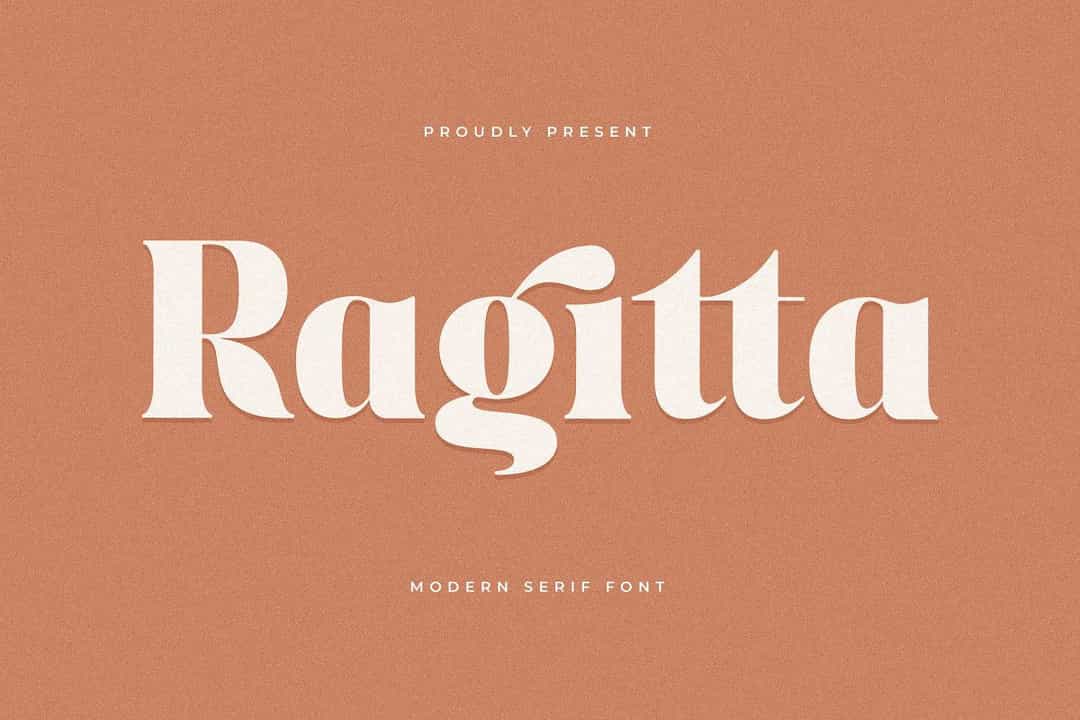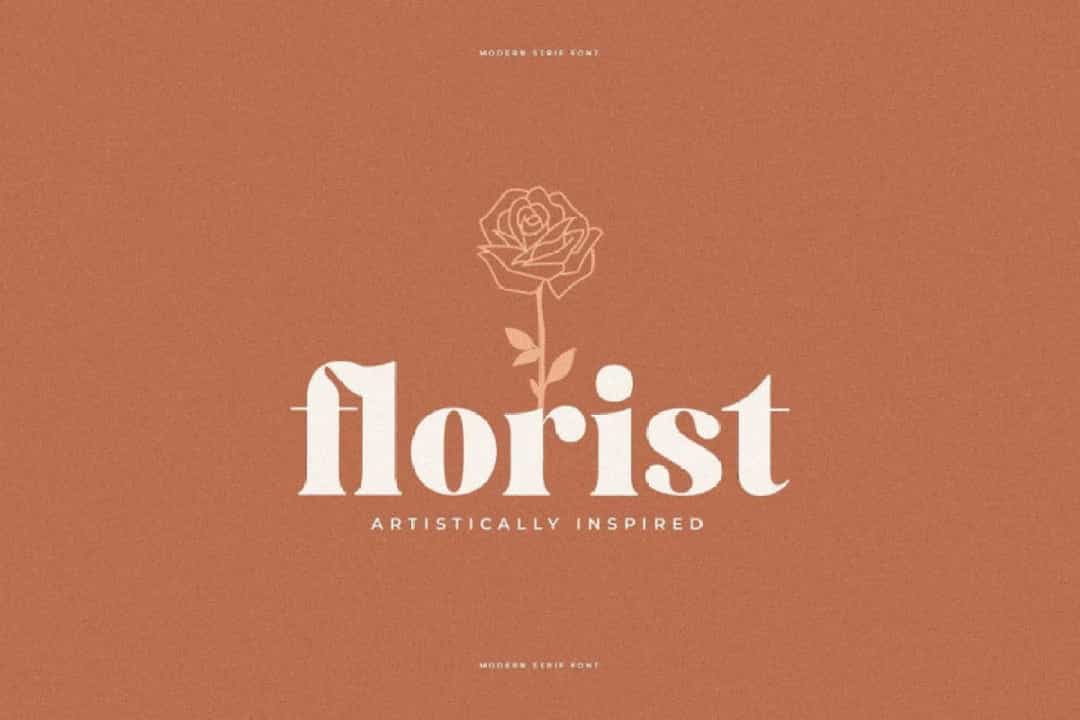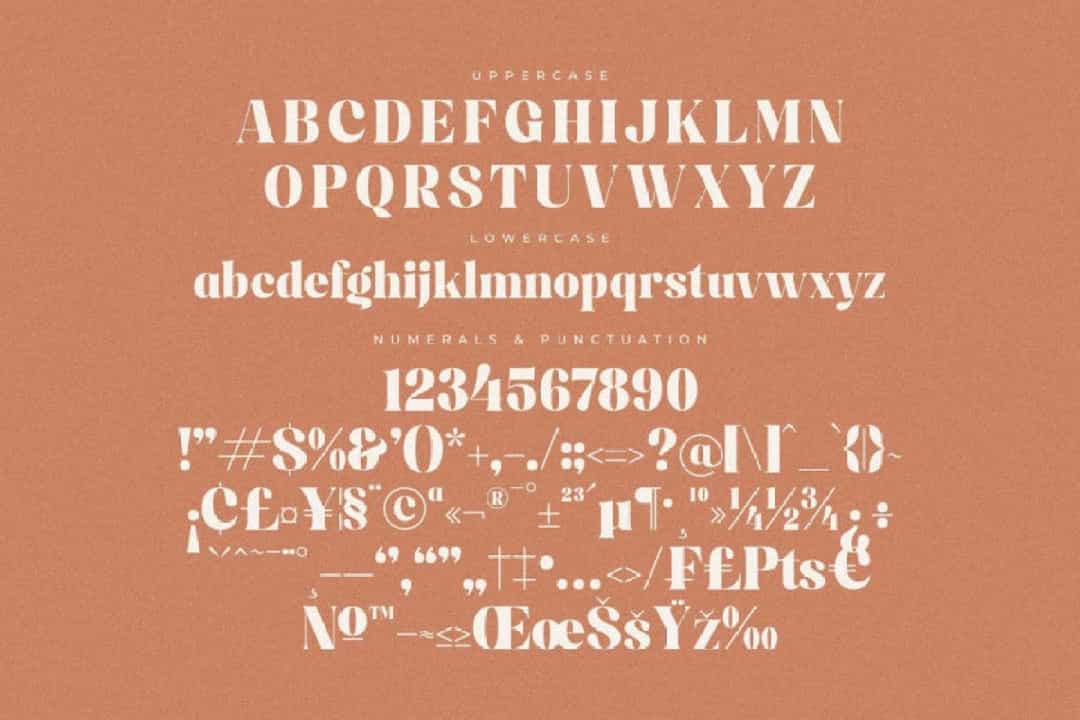
Ragitta Font was developed by Storytype to offer both modern and classic serif font styles with its distinct style and modern appearance. It can be used to create stylish logos, book, film title designs, fashion brands, magazine clothing ads, lettering quotes and many other purposes.